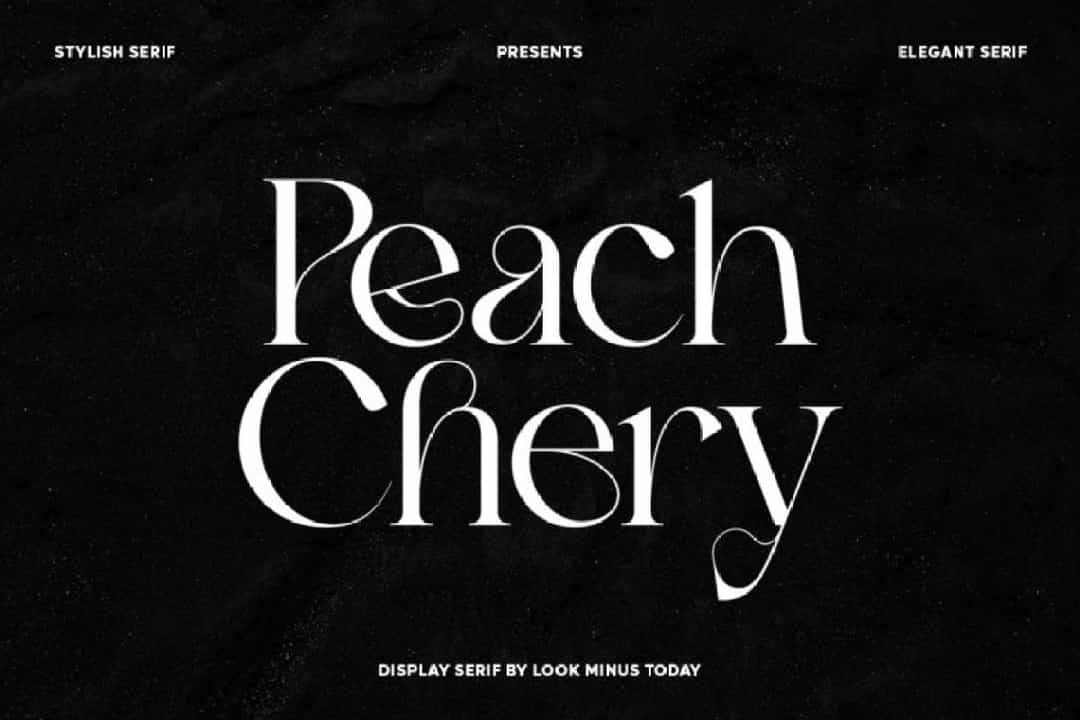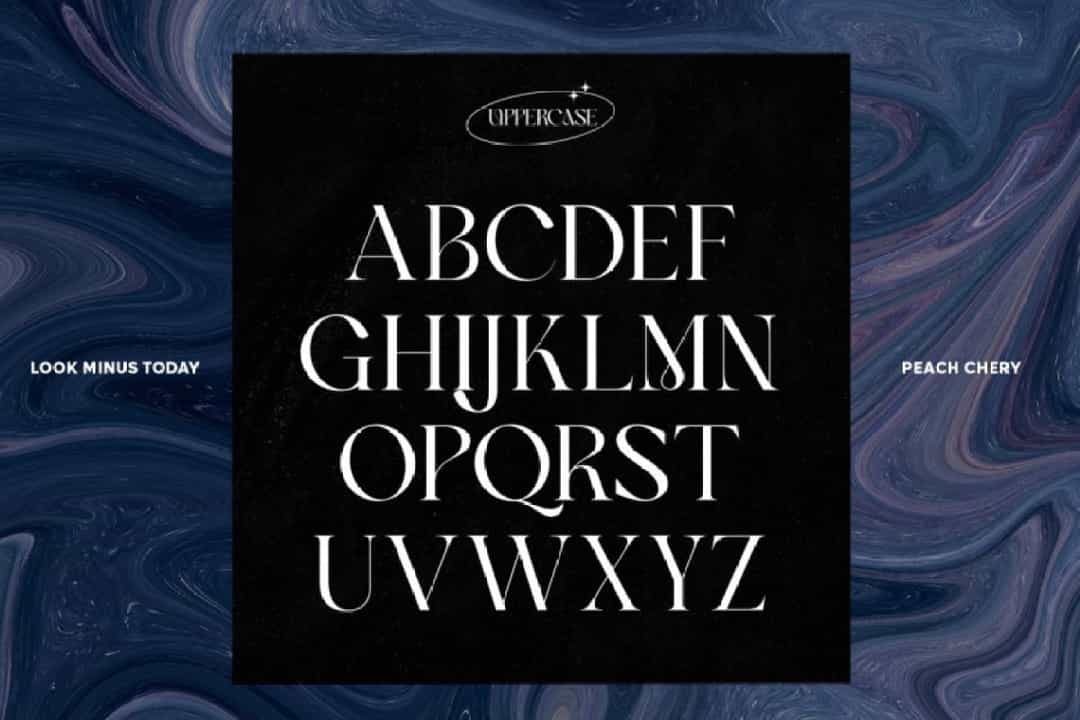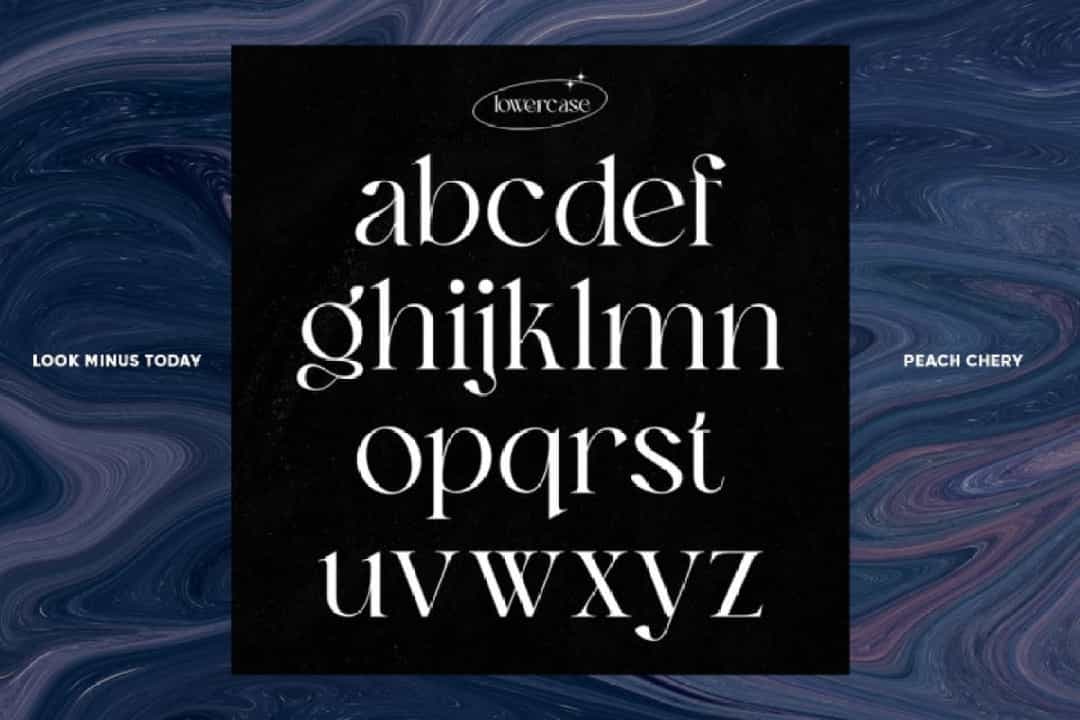
Peach Chery is a stunning display serif font designed to add sophistication and grace to any design project. With its stylish and sleek appearance, Peach Chery makes for ideal use in branding, advertising and editorial designs alike – no matter if designing prints or digitally. This font will definitely bring sophistication and elegance into any of your projects.